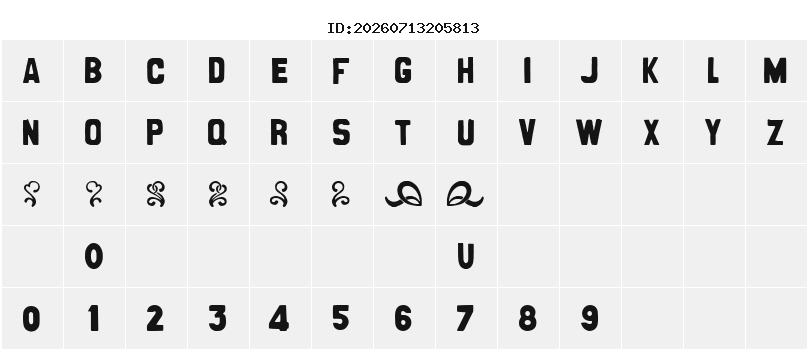
CanCan de Bois Preview
• Font Name: CanCan de Bois
• Font ID: GermnVentriglia: CanCan de Bois Bold: 2010
• Full Font Name: CanCan de Bois Bold
• Version: Version 1.002
• PostScript Name: CanCandeBois-Bold
• Character Count: 116
• Designer: Germ‡n Ventriglia
• Manufacturer: Germ‡n Ventriglia
About CanCan de Bois.ttf
CanCan de Bois.ttf is a modern, elegant sans-serif font designed for ultimate readability and visual harmony. Perfect for branding, headlines, web design, and print materials.